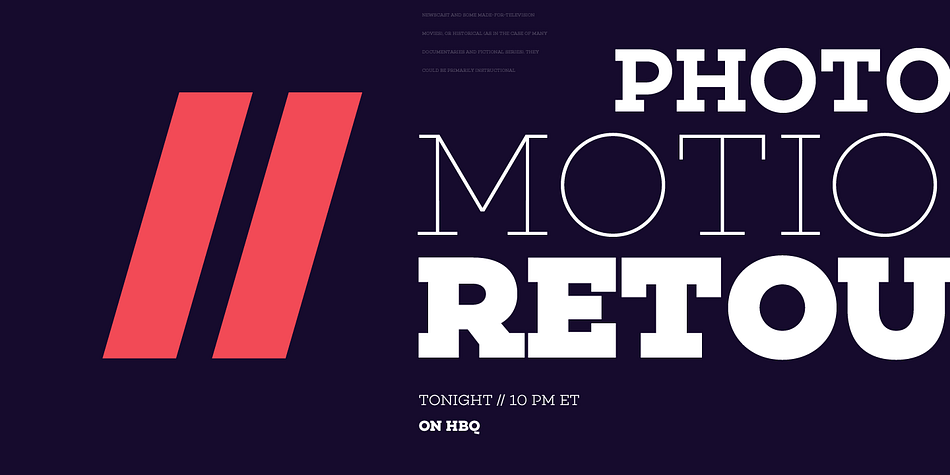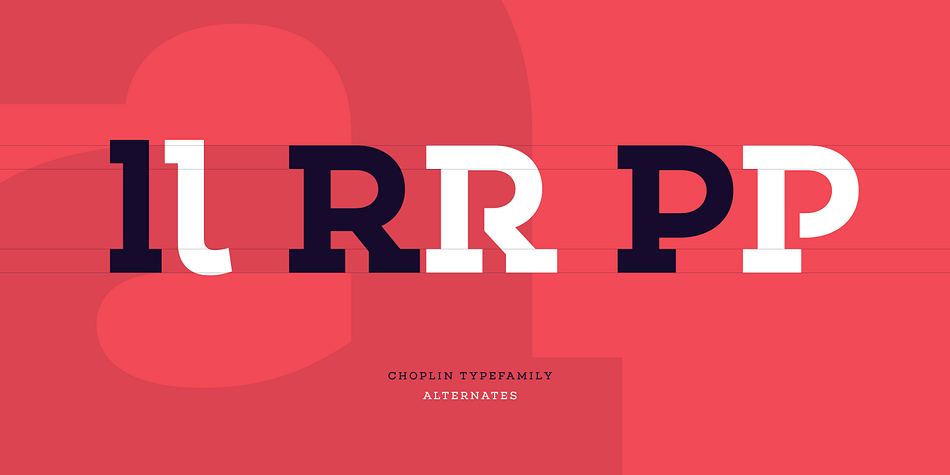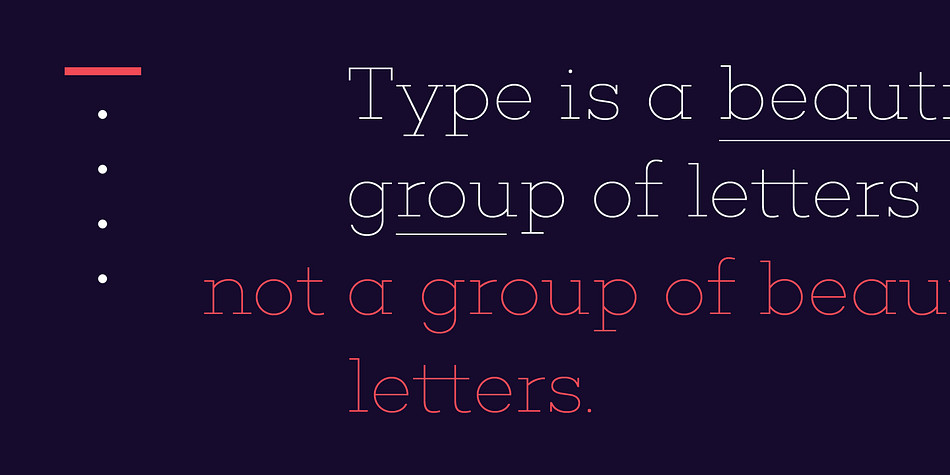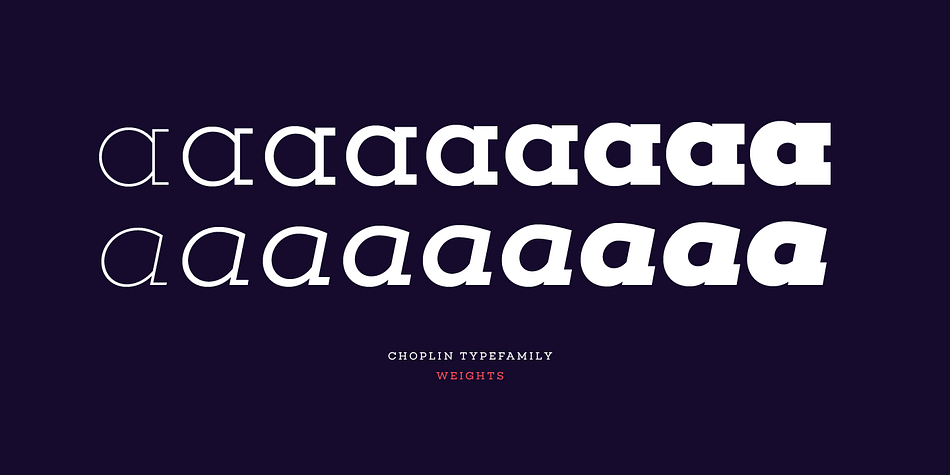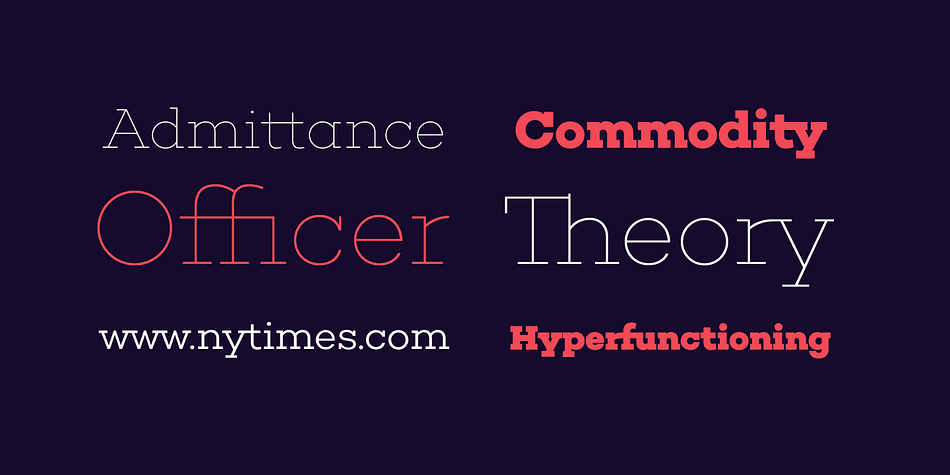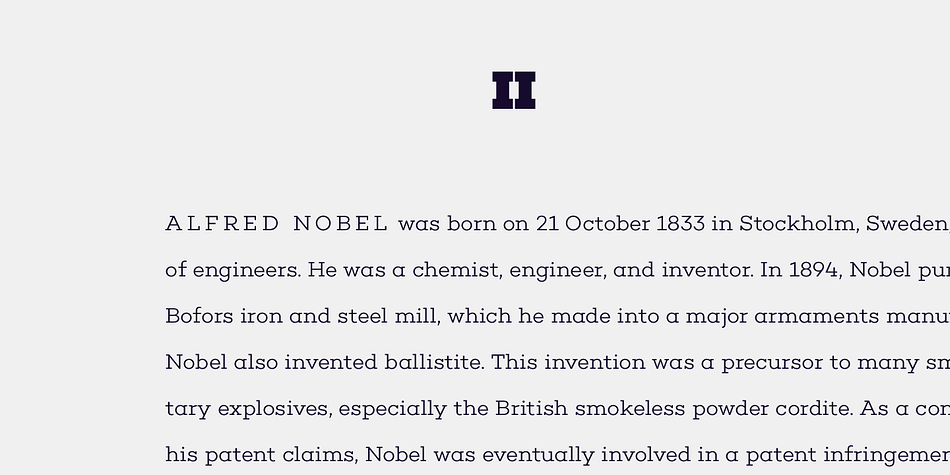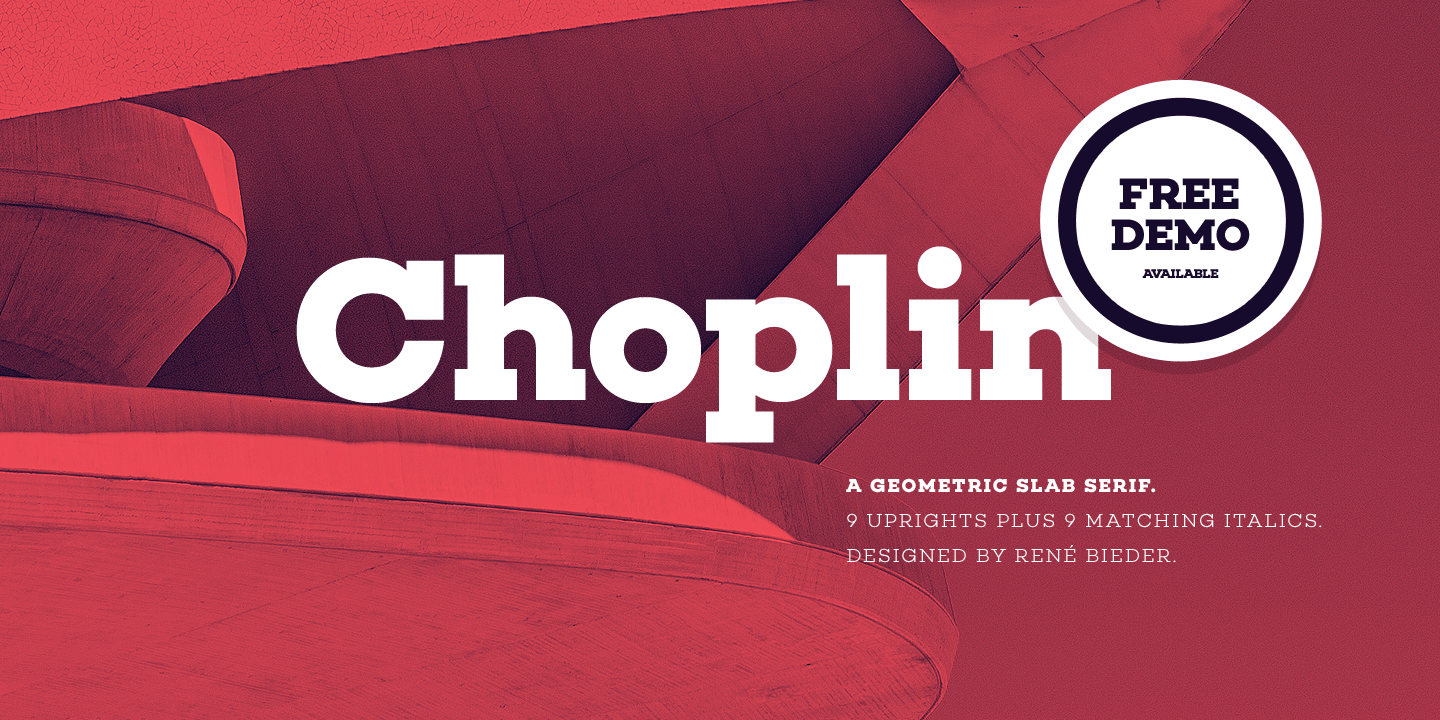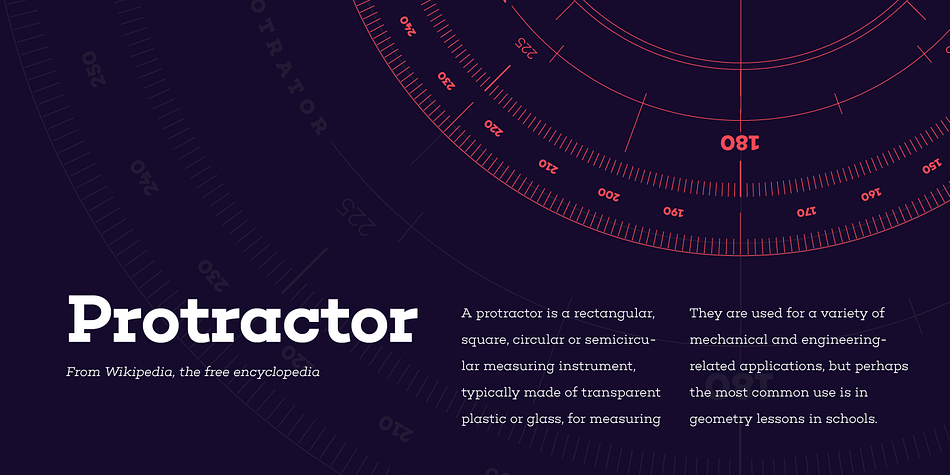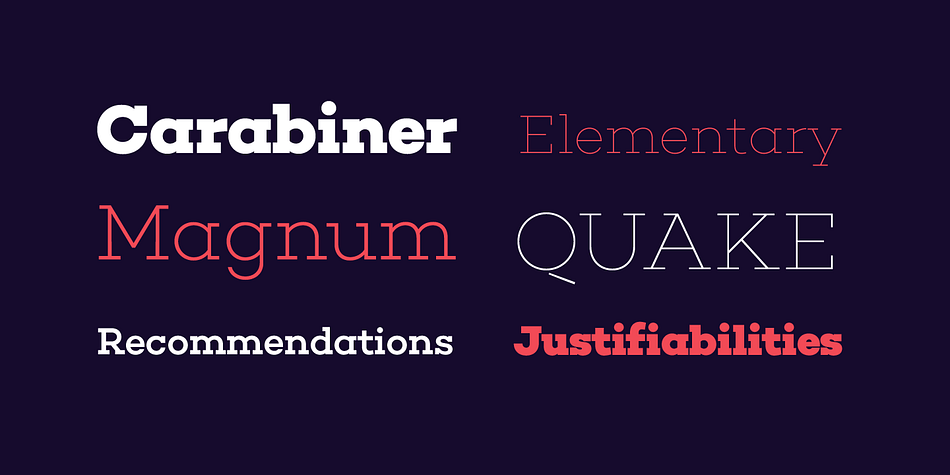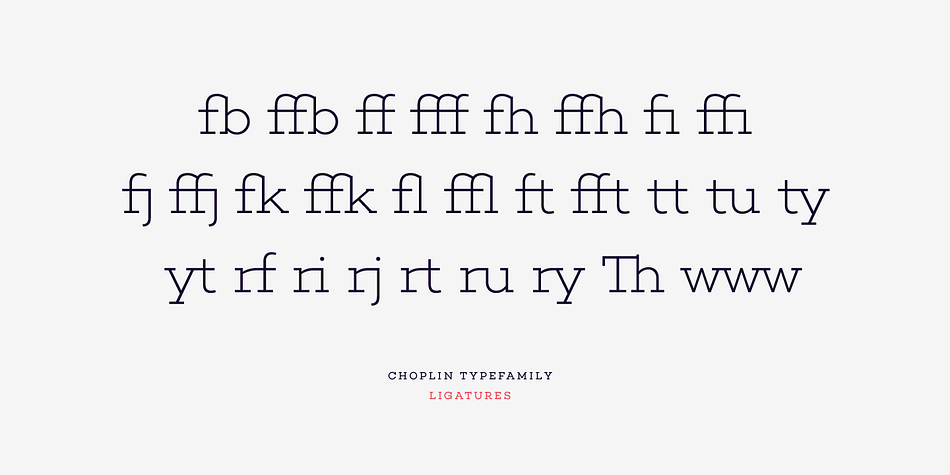
Choplin is a slab serif font family. This typeface has twenty styles and was published by Rene Bieder.
Choplin is a modern and clear geometric slab serif with a sturdy heart. It was designed based on the Campton Family, with the same principles in mind: geometry, simplicity and neutrality. As a consequence, Choplin could be seen as an immediate companion to the Campton Family. However, during the process lots of details were changed in order to sharpen the slab serif character which resulted in a slightly different interpretation.
Similar to Campton, it is perfectly suited for graphic design applications ranging from editorial, corporate, web, interaction to product design. In addition, it has an extended range of alternative glyphs, ligatures and opentype features which provide flexibility and uniqueness wherever it is placed.